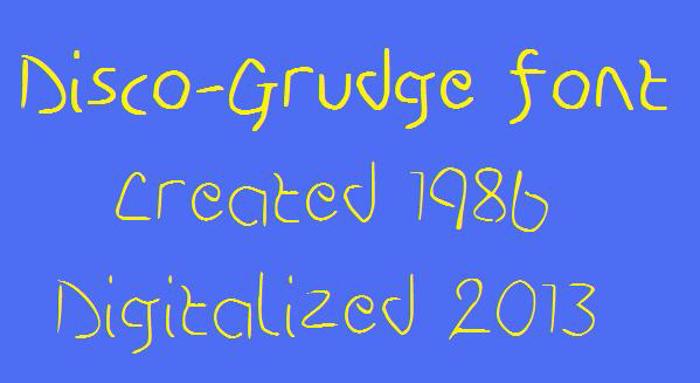
Disco-Grudge Font
Named for two music genres that just didn't make it
in America. One had too much exposure, the other, not enough. It was inspired by the 1970's Disco fonts like Bahaus 93 and Blippo (I think) which I called "the Jefferson's font" because it was used for the credits (and just about everything else) for that tv sitcom.
Grunge was an alternative music (and like Disco a lifestyle) where the sky was the limit. It was more "rebel-like" but not quite "redneck". That's where the Grunge part came in.
It's basically Disco form and design done for the Grunge era. It was drawn in 1986 but never released to the public until now. The Disco-Grudge font family was created in 2013. A complete redraw of the original font, which was not officially named until this time. The Original had only 52 characters and was a single variety only. Punctuation was added later. The 2013 redraw resulted in 3 varieties, with 406 characters each. They were all digitized each as both .ttf for Windows and .otf for Apple. There's no registered trademark or Yen sign but most common symbols are there. (See pictures for what's included.
The varieties are lite (the freest of them all), rounded (Very liberal but more conservative on several characters, and of course "Stroked" for the calligraphy pen used in it's making for the final version. The Stroked is also the closest to the original design. Retro fanatics would probably love this font.
Dude, that's ******* weird! (in a good way)
I'm not sure how to interpret your take on grunge. "not quite 'redneck'" — huh?????
The Grudge movement was very renegade, but was a not "Goofing it up then making fun of it" type crowd. A excellent example of what Redneck is I'd have to say is the tv series from A&E (aetv.com) called Duck Dynasty. It'd be hard to not call these folks Redneck in every sense of the term. The only thing missing is the trailer home. Jeff Foxworthy made a killing from Redneck jokes. You Tube is full of Redneck stuff, yet you see little about Grudge where they had their own way with their own music. They were wild but not goofy like today's Redneck would be. How many Grudge jokes have you heard. How many t-shirts have you seen making fun of the Grudge lifestyle. There's plenty making fun of the Redneck. Also Rednecks aren't always this way, but a lot of them have a more "Dixie" like living, so it's not uncommon to see Confederate flags in Redneck designs and homes. Keep in mind, not all Rednecks are White.